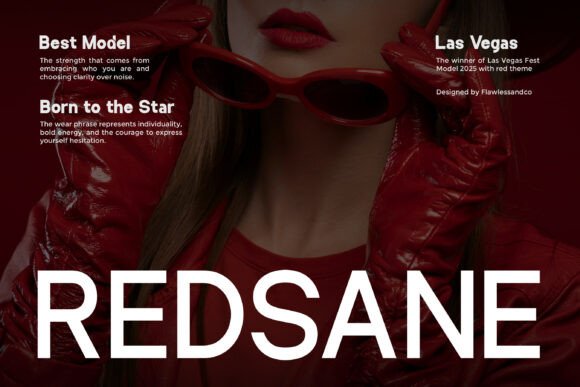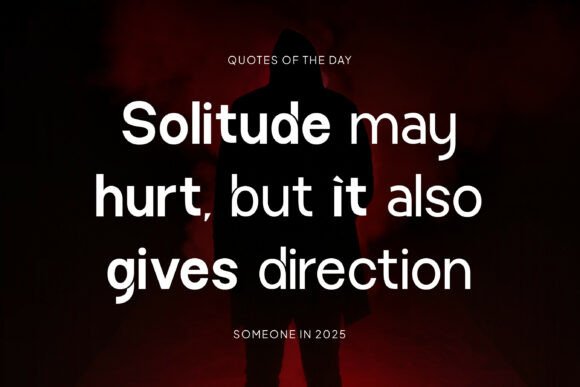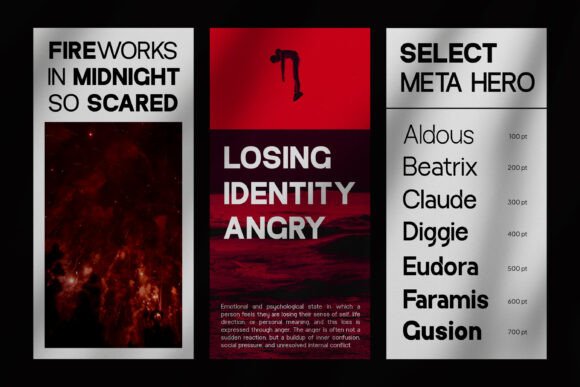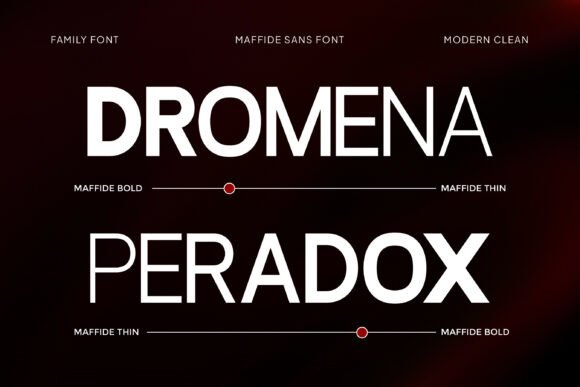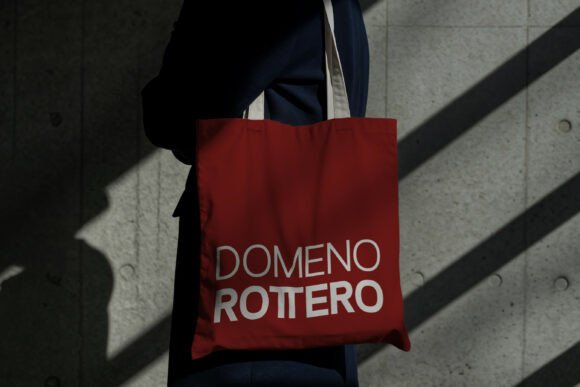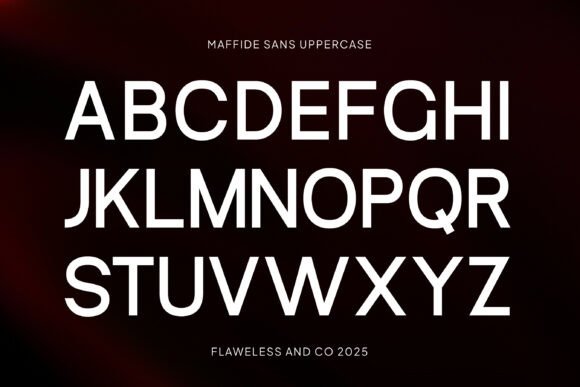
Introduction to Maffide Font
Maffide is a modern sans serif family font designed to deliver a clean, professional, and contemporary look.
With its balanced proportions and smooth letterforms, Maffide offers excellent readability while maintaining a strong visual presence The family includes 7 versatile styles, making it easy to build a clear hierarchy and consistent layouts across different design needs.
Key Features of Maffide Font
Why Choose Maffide Font?